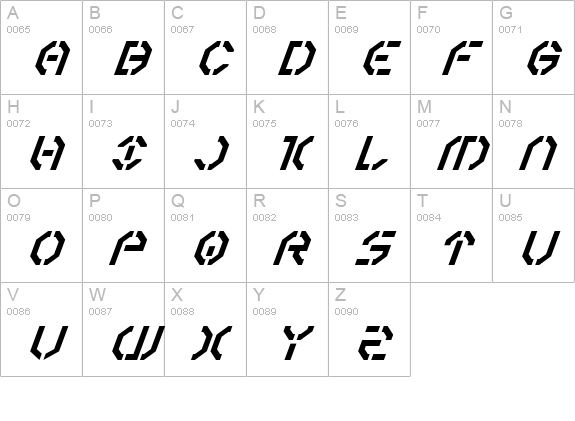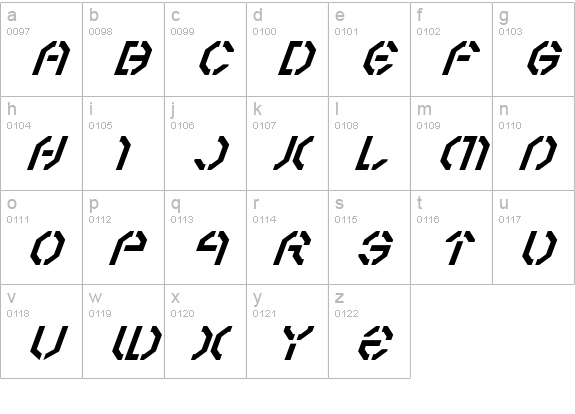
Year 3000 Italic is a distinctive, italic variant in the Year typeface family \xE2\x80\x94 well suited to design and typography projects.
Year 3000 is a futuristic and sleek italic font that brings a touch of modernity to any design project. Its clean lines and sharp angles give off a sense of innovation and progress. This font is perfect for creating a cutting-edge look for your branding, marketing materials, and more. Not only does Year 3000 offer a unique style, but it also comes with a generous license that allows for free usage in both personal and commercial projects. You can freely download this font at FontsMarket.com and start incorporating its dynamic aesthetic into your designs today. Let Year 3000 elevate your creations to new heights with its bold and distinctive presence.